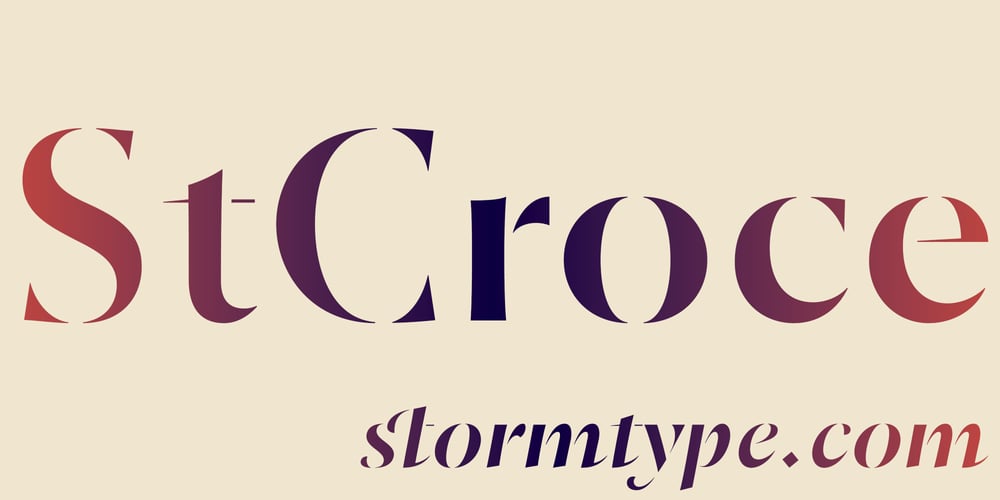
St Croce Pro Font Family was designed by František Štorm and published by Storm Type Foundry. St Croce Pro contains 36 styles and family package options. Our eye is able to join missing parts of worn letters back into undisturbed shapes. We tend to see things better than they really are. Thanks to this ability we ignore faults of those close to us as we can’t accept the fact that every once in a while we convene with an impaired entity. Typography is merely a man’s invention, hence imperfection and transience, albeit overlooked, are its key features. This typeface is based on worn-out letterings on tombstones in the St. Croce basilica in Florence. For hundreds of years, microscopic particles of marble are being taken away on the soles of visitors: the embossed figures become fossilised white clouds, fragments of inscriptions are nearing the limits of legibility. First missing are thin joins and serifs, then the main strokes finally slowly diminish into nothingness over time. Unlike an archaeologist, for whom even completely featureless stele is valuable, the typographer must capture the proper moment of wear, when the type is not too “new” but also not too much decimated. Such typeface is usable for catalogue jackets, invitations and posters.Calligraphy is a natural human trait. To write is to create characters of reasonable beauty and content, according to the nature of the writer. A natural characteristic of architecture is to create an aesthetic message very similar to the alphabet. A doric column, the gabled roof, the circle of the well plan: these are the basic shapes from which all text typeface is derived.